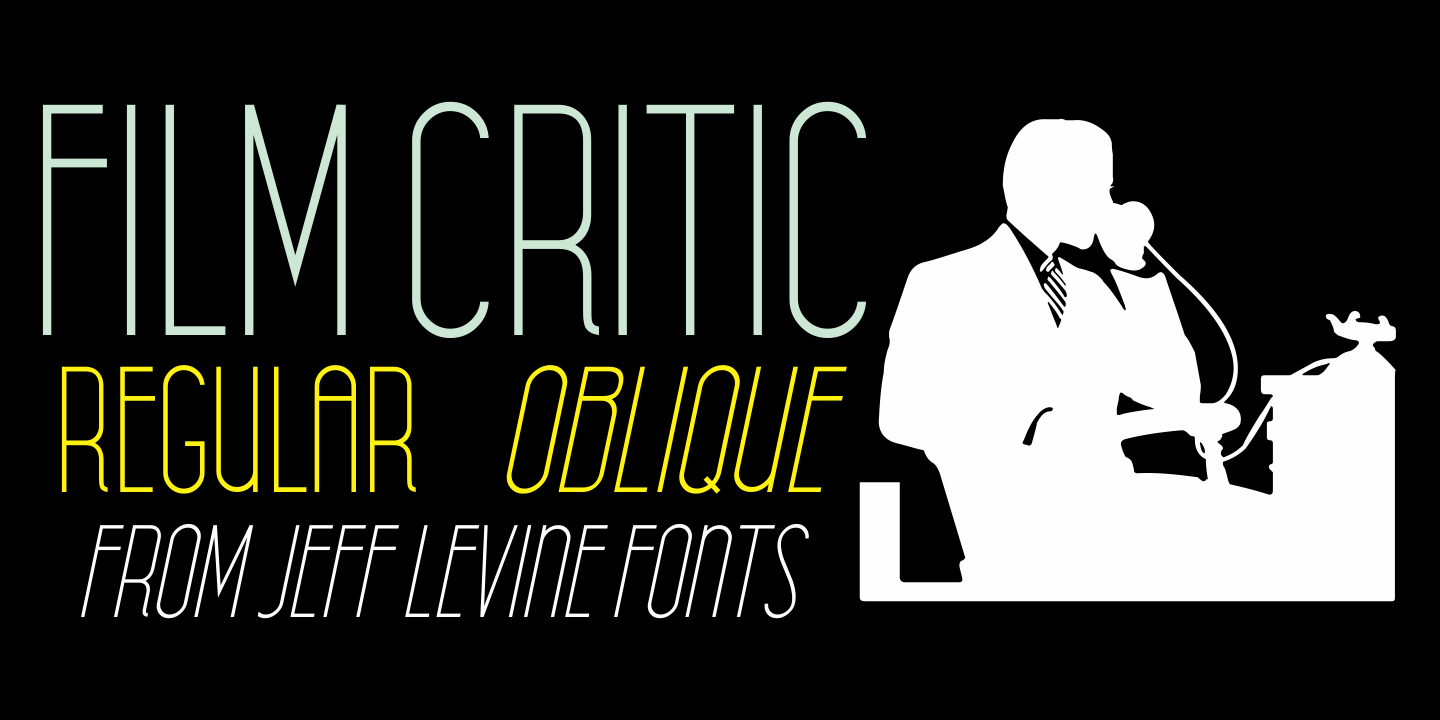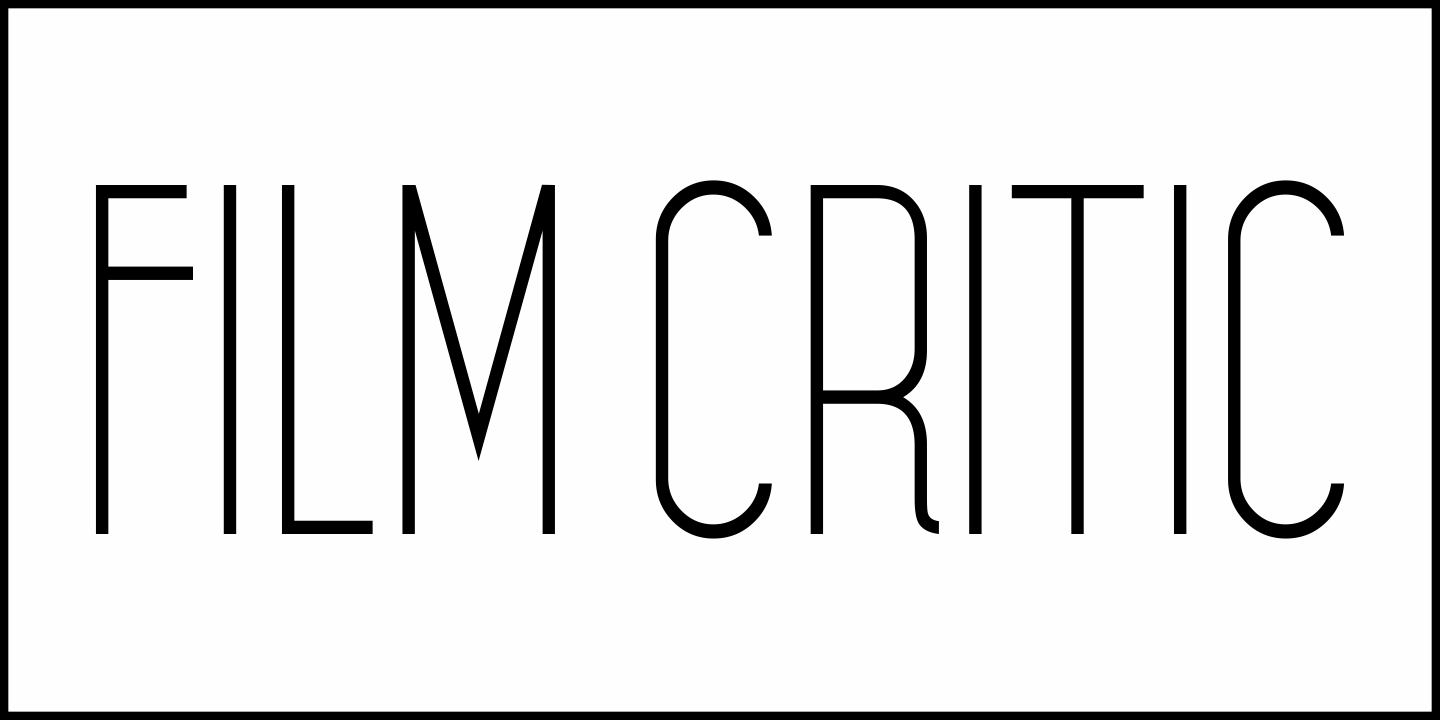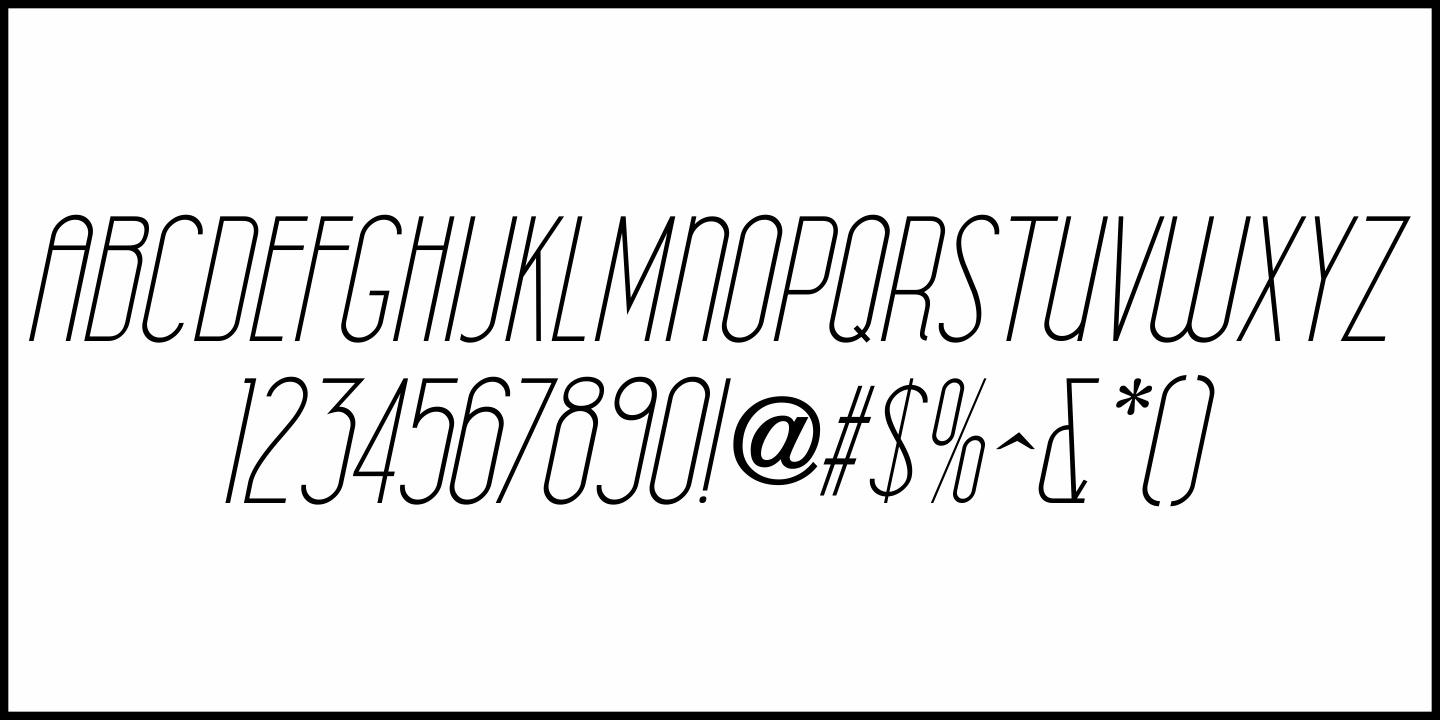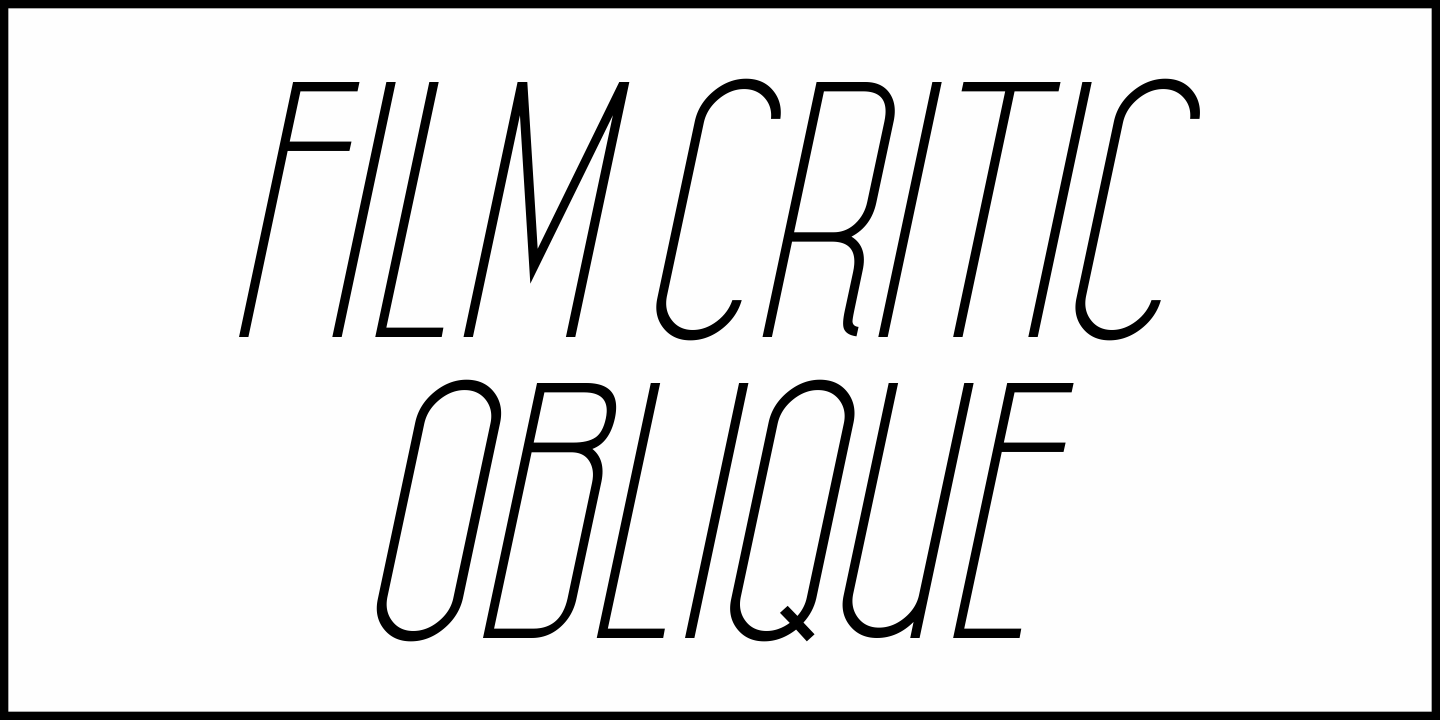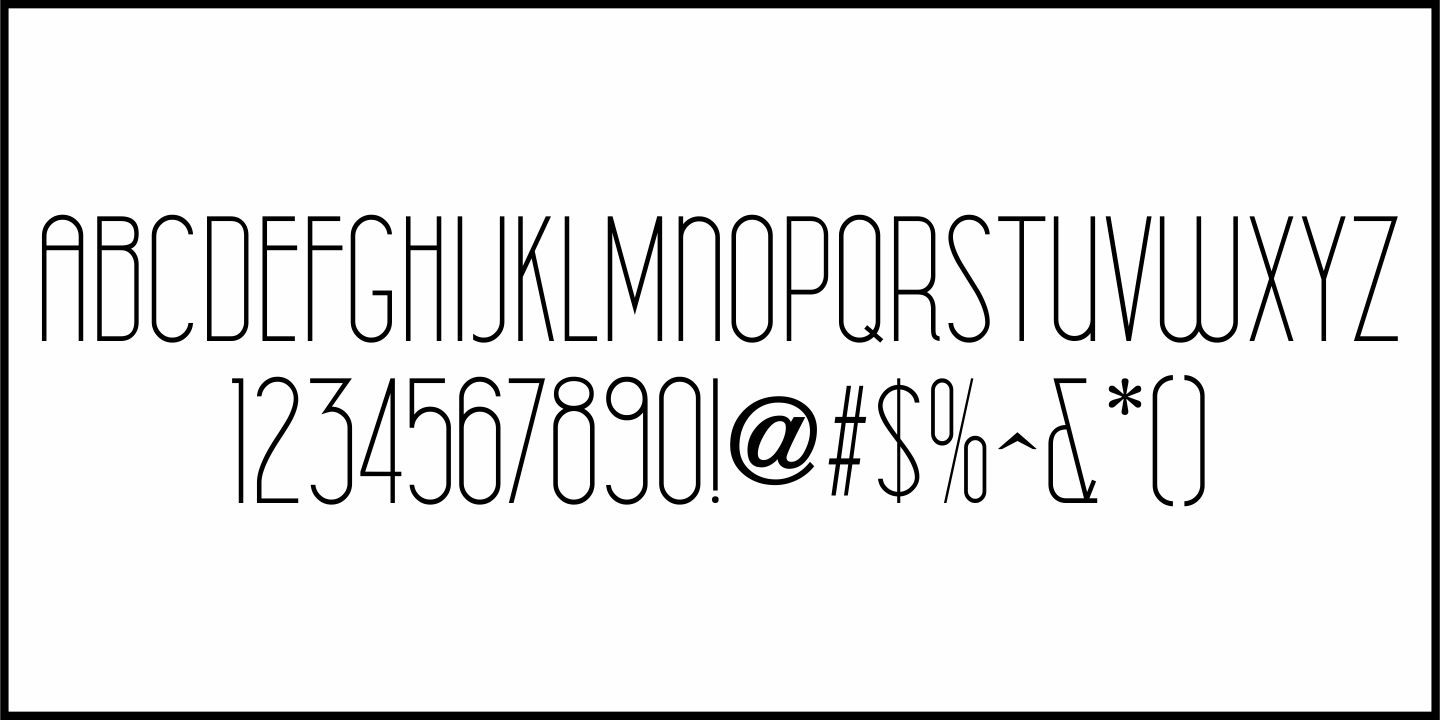
Film Critic
An ongoing movie review column known as the 'Critics Forum” (such as was found in the May 23, 1936 issue of The Film Daily) had a simple Art Deco monoline hand lettering of the column's name.
Redrawn digitally as Film Critic JNL, this typeface is now available in both regular and oblique versions.
Film Critic Regular by Jeff Levine Fonts